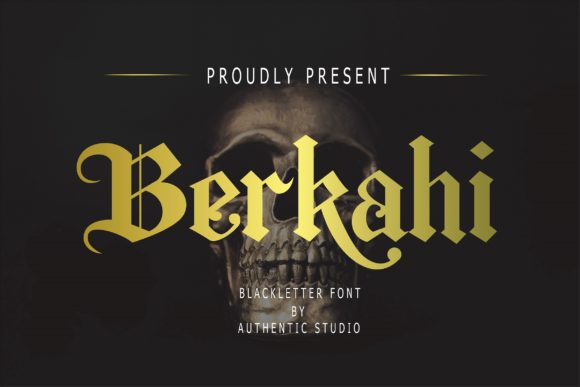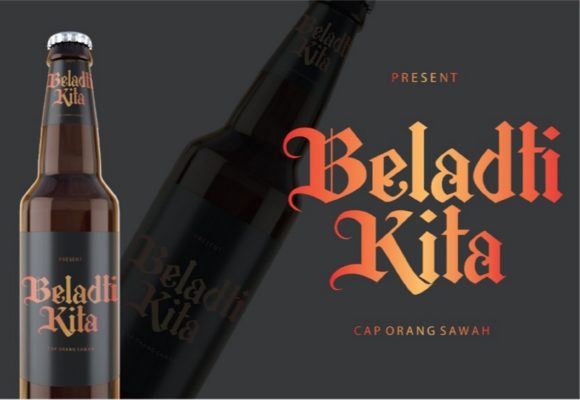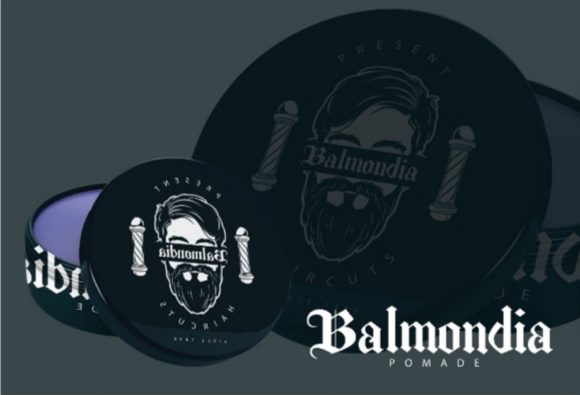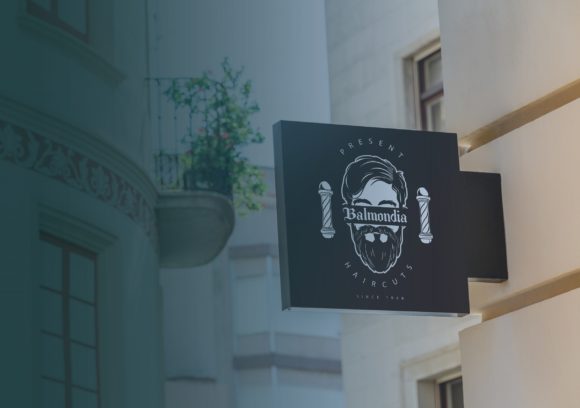
Berkahi Font: Unique Blackletter for Tattoos & Gothic Logo Design
About the Berkahi Font
The Berkahi Font offers a perfect balance of form and function for your design needs. Berkahi is a unique gothic blackletter, perfect for tattoos, clothing, labels, packaging, branding, or any Gothic-themed projects!